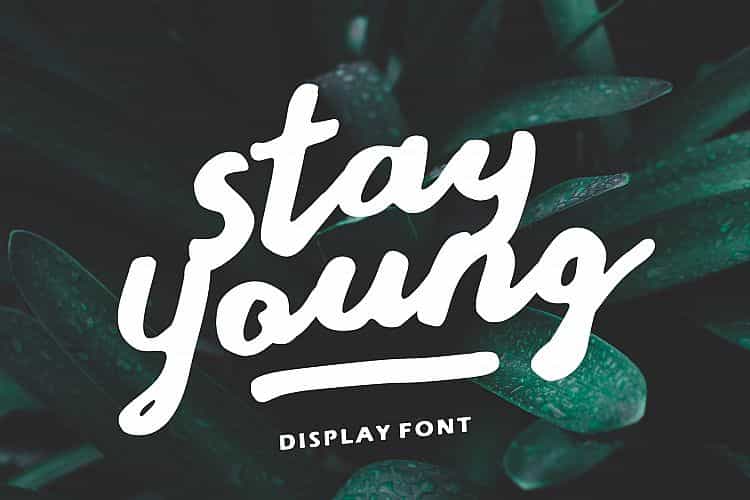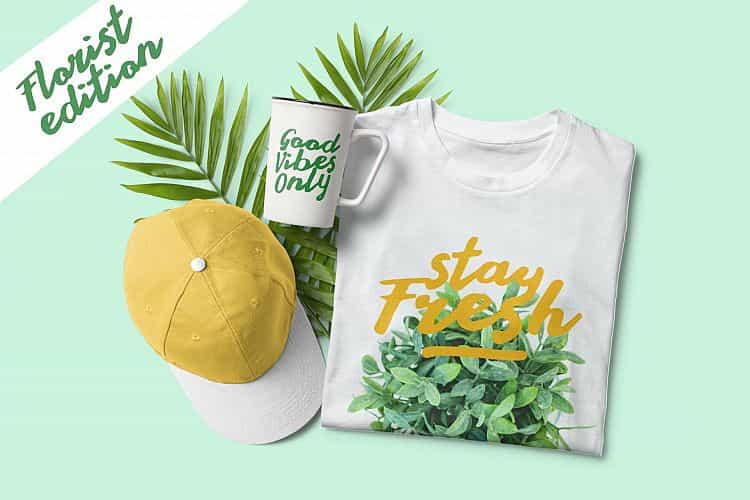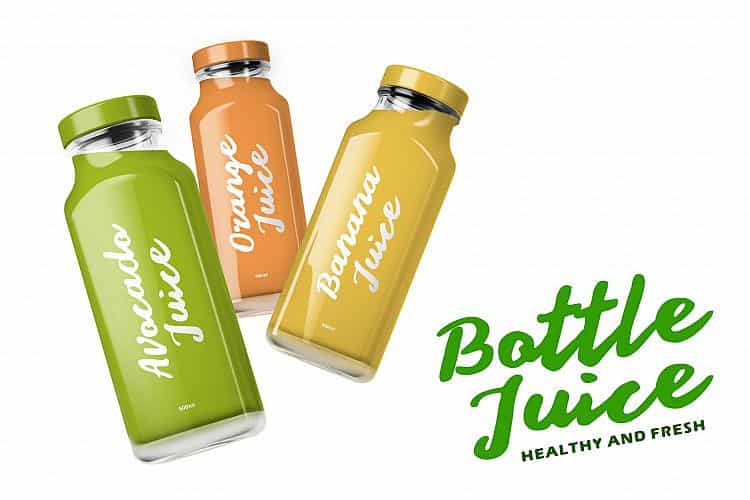
Say hello to Stay Young Font. This is a strong and bold script type, curved and rounded in every single touch. It has unique and vintage styles, perfect for that vintage branding and logotype needs. It is designed and shared with us by AZetype.